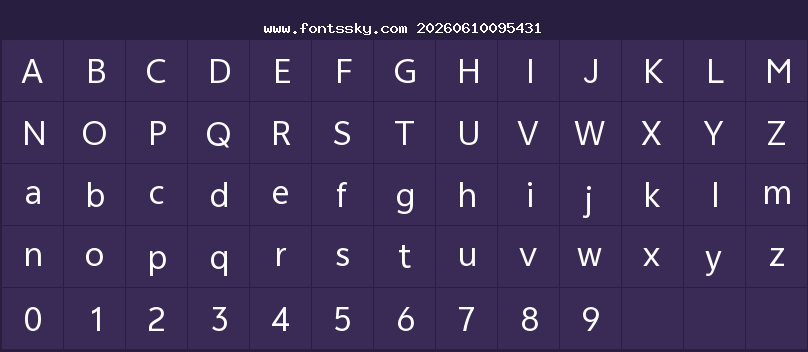
• Font Name: vivo Sans Global
• Full Font Name: vivo Sans Global Regular
• Version: Version 1.060
• Designer: 北京北大方正电子有限公司
• Manufacturer: 北京北大方正电子有限公司
About vivo Sans Global.ttf
vivo Sans Global.ttf is a modern, elegant sans-serif font designed for ultimate readability and visual harmony. Perfect for branding, headlines, web design, and print materials.